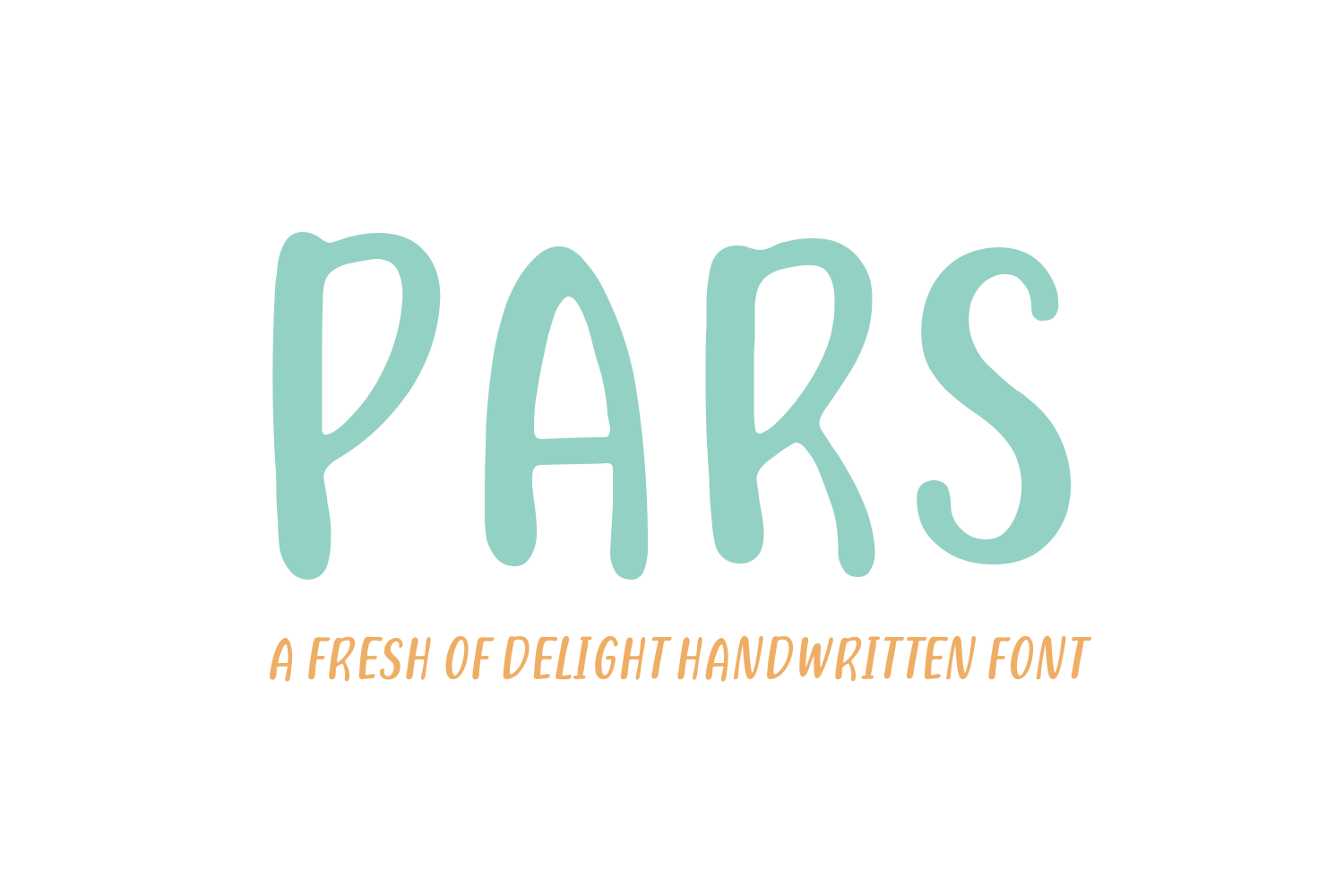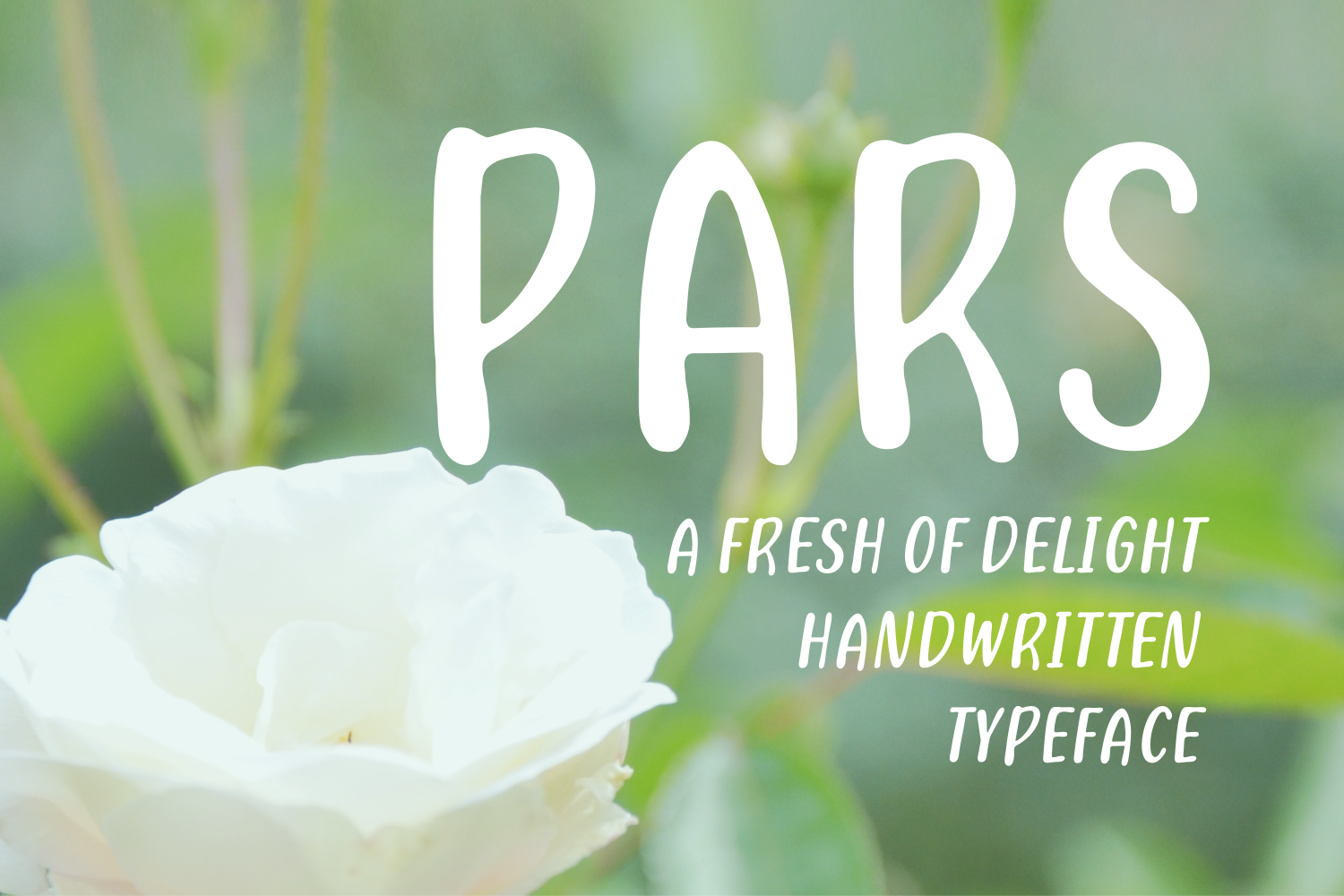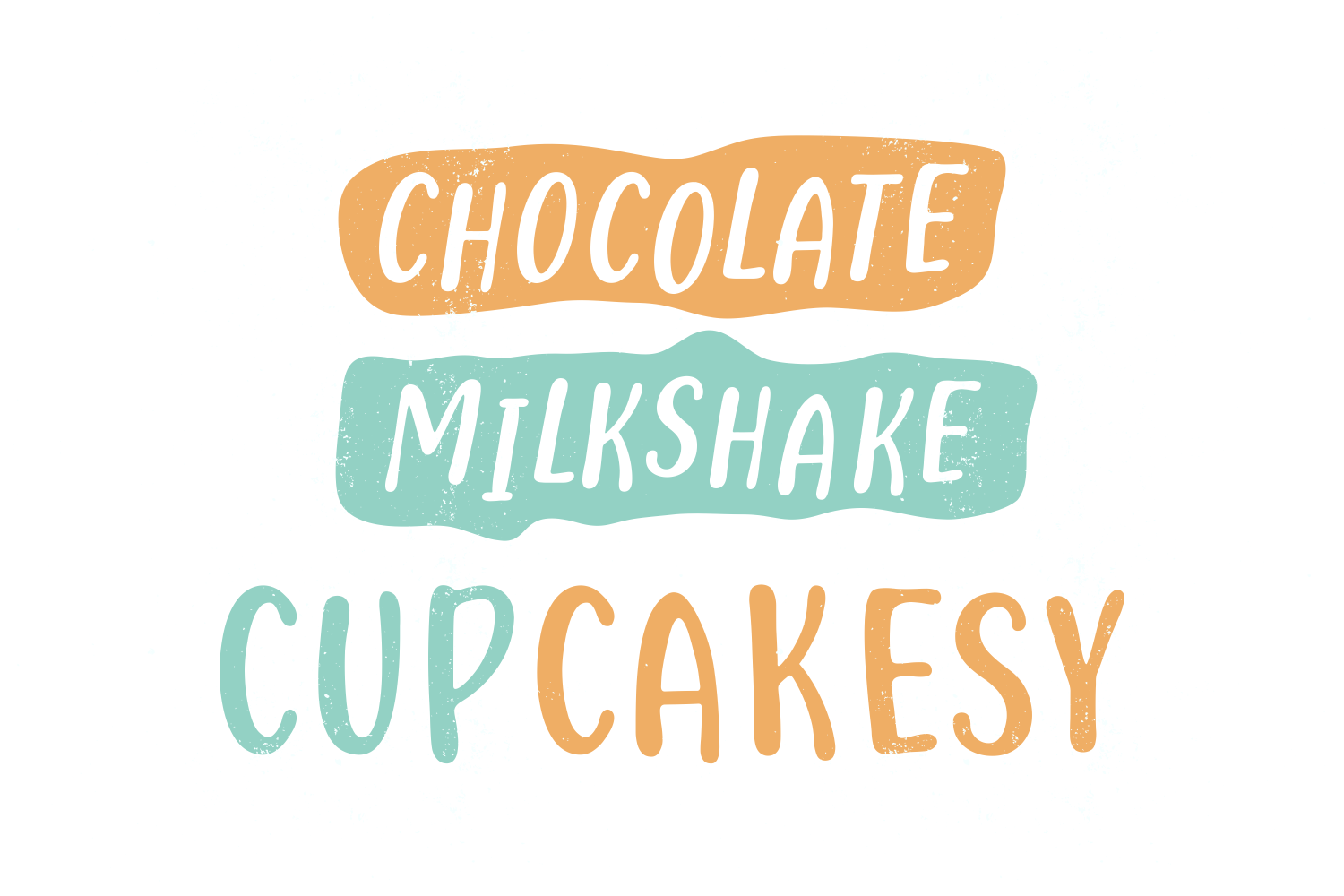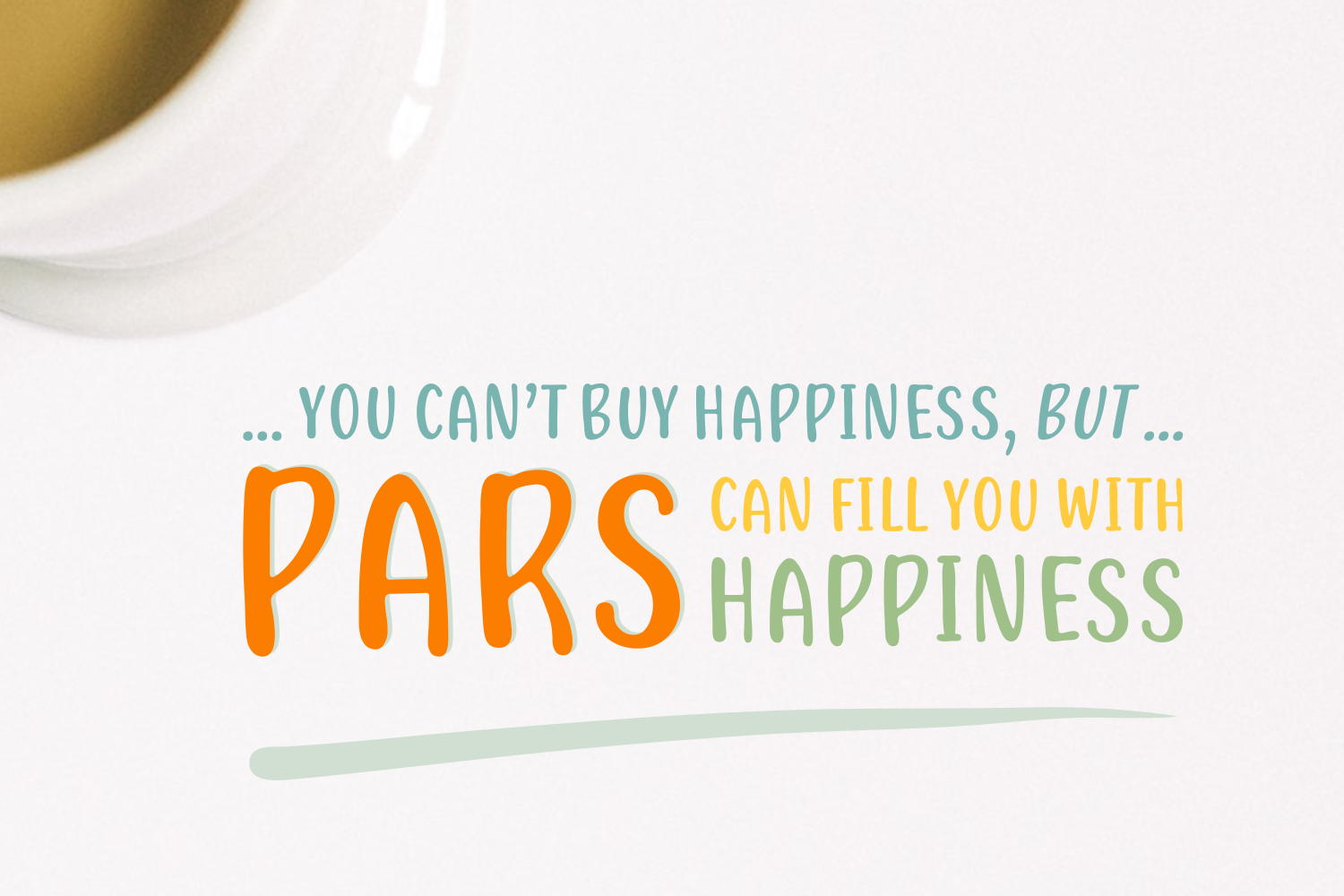
Introduction to Pars Font
Pars is a fresh, clean handwritten font that comes as regular and italic.
The Pars font has a soft vibe which gives the text a relaxed and positive feeling .
Key Features of Pars Font